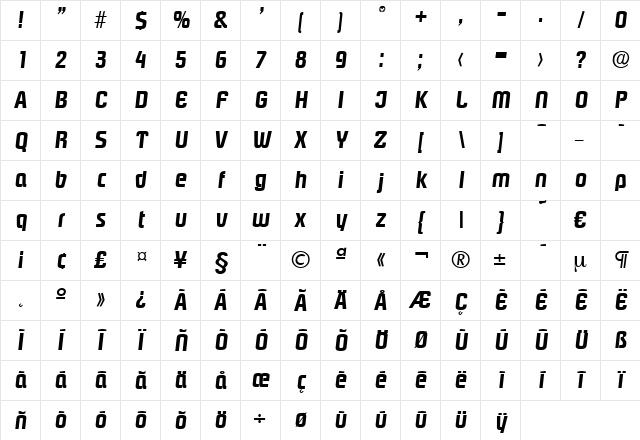
Pasadena-DemiBoldIta Regular
Design Context for Pasadena-DemiBoldIta
Pasadena-DemiBoldIta is a composed and adaptable typeface that performs quietly and consistently across a wide range of design contexts. Its bold stroke weight gives it real presence on the page.